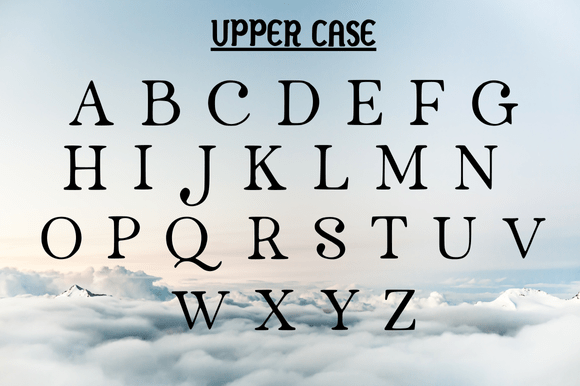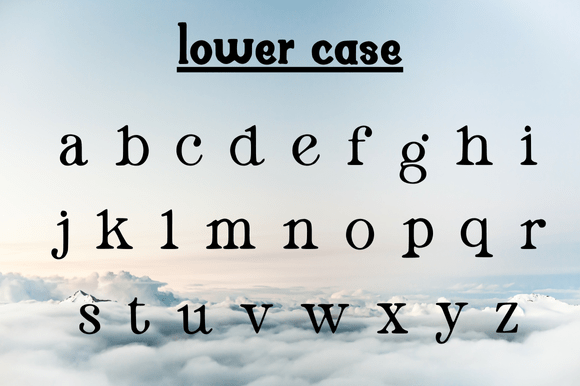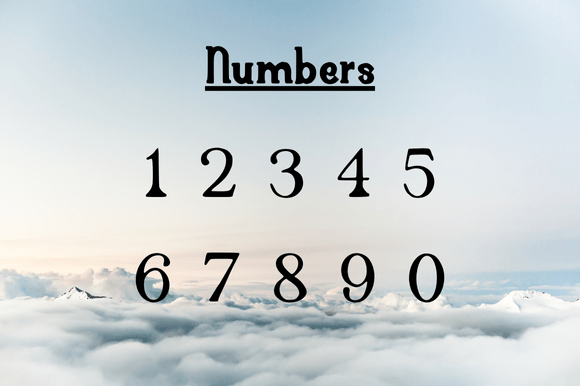
Discover the Elegance of Ballards of Heaven Font: A Designer’s Delight
Immerse yourself in the simplicity and beauty of the Ballards of Heaven font, a typeface that embodies serenity and sophistication. This elegant font is sure to invoke a sense of appreciation for its smooth, uncluttered lines, making it a perfect addition to your design arsenal.
What is Ballards of Heaven Font?
Ballards of Heaven font is a beautiful, clean, and harmonious typeface that can elevate your digital aesthetics. Its simplicity and elegance make it an ideal choice for designers, crafters, and anyone looking to add a touch of sophistication to their projects.
Key Features of Ballards of Heaven Font
- Comprehensive Character Set: The Ballards of Heaven font includes uppercase and lowercase letters, along with numbers, providing a complete set for all your textual needs.
- Clean and Crisp: The font’s smooth, uncluttered lines give it an invitingly crisp and harmonious appearance, perfect for creating visually appealing designs.
The Ballards of Heaven font offers numerous benefits for designers and crafters, including:
- Enhanced Visual Appeal: The font’s elegant design can add a touch of sophistication to your projects, making them stand out from the crowd.
- Versatility: The comprehensive character set and ease of use make it an ideal choice for a wide range of projects, from digital designs to print materials.
Tips for Maximizing the Potential of Ballards of Heaven Font
To get the most out of the Ballards of Heaven font, consider the following tips:
- Pair with Complementary Fonts: Combine the Ballards of Heaven font with other fonts that complement its elegant style.
- Experiment with Colors: Try different color schemes to find the perfect match for your design.
- Play with Typography: Experiment with various typography techniques, such as kerning and leading, to create visually appealing text.
The Ballards of Heaven font is a beautiful and elegant typeface that can elevate your digital aesthetics. With its comprehensive character set, ease of use, and clean design, it’s an ideal choice for designers and crafters looking to add a touch of sophistication to their projects. By incorporating the Ballards of Heaven font into your workflow, you can create visually stunning designs that leave a lasting impression.